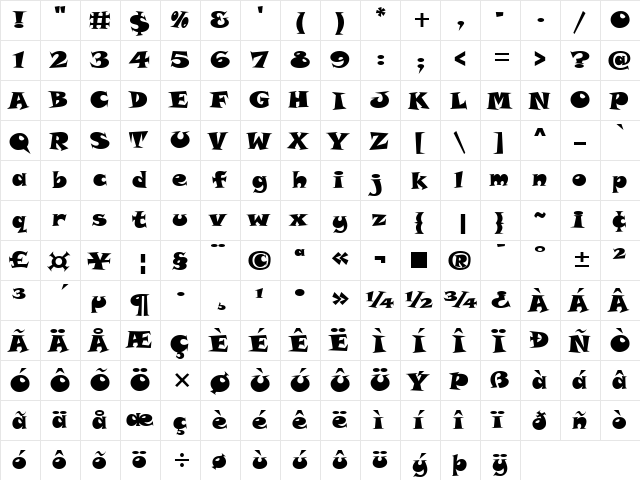
Disney Comic Regular Font Preview
Disney Comic Regular
Design Context for Disney Comic Typeface
Disney Comic trades formality for fun, with bouncy, characterful letterforms that bring warmth and energy to any project.
Font Pairing: Pairs well with a rounded or humanist sans for body copy, maintaining the friendly tone without relying on Disney Comic to carry extended reading.
Pro Tip: Avoid using Disney Comic for long passages of text — it works best for headlines, labels, and short calls to action.